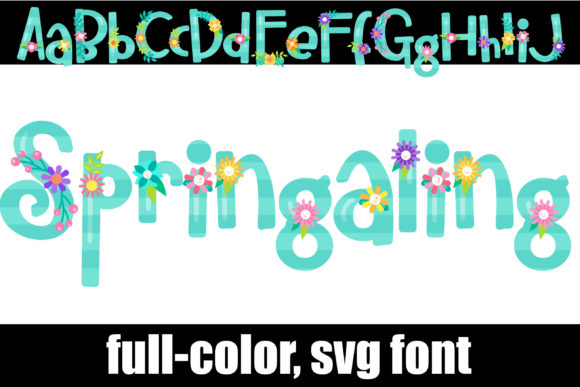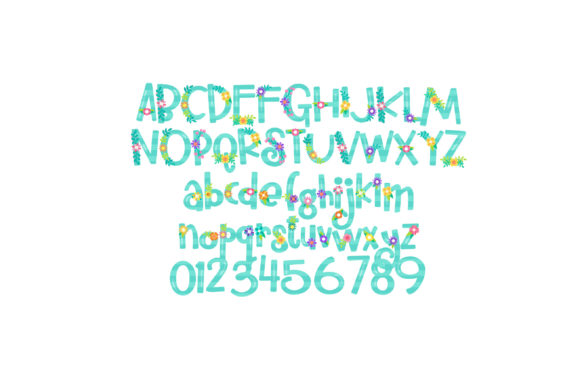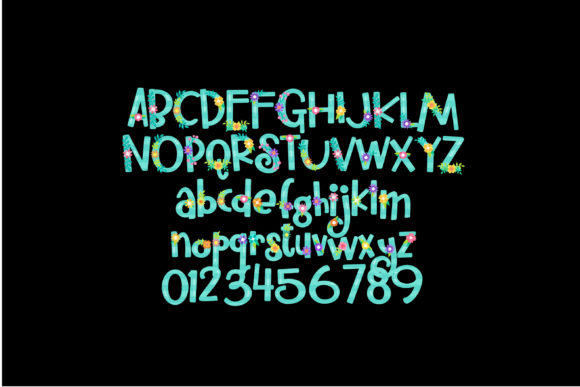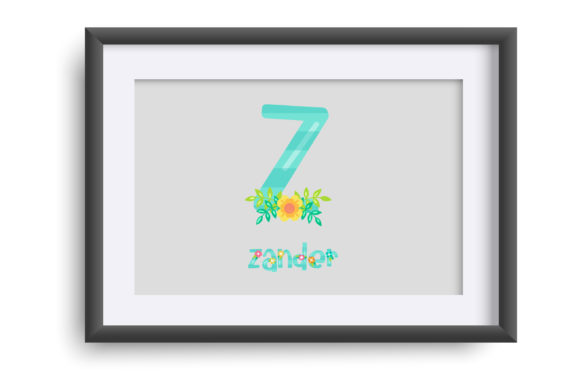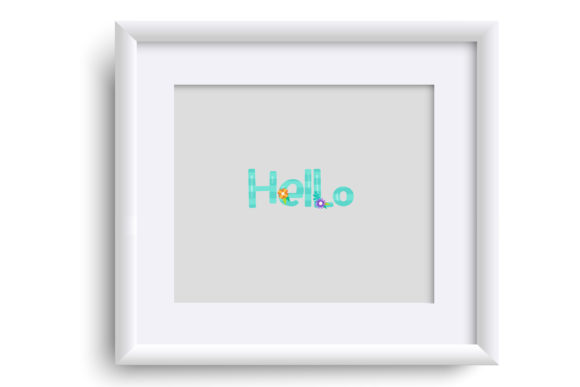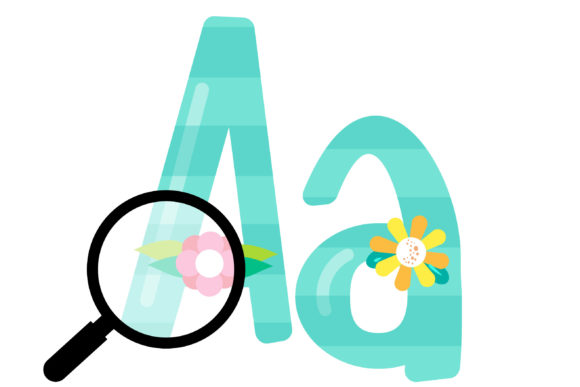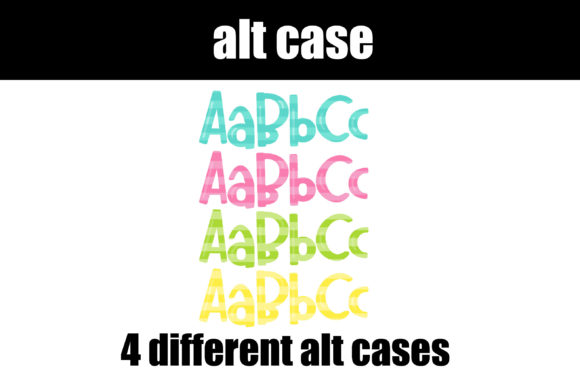
Springaling Font
About Springaling Font
Springaling is a captivating full-color font that brings a delightful touch to your designs. With its heavy sans serif lettering in soft pastel tones and charming flower accents, it adds a whimsical and playful element to any project. Whether you’re creating designs for spring-themed events, feminine branding, or simply want to infuse your creations with a touch of cheerfulness, Springaling is an excellent choice.
One of the remarkable features of Springaling is its PUA encoding. PUA stands for “Private Use Area,” which allows you to access all the amazing glyphs and ligatures effortlessly. This means you have a wide range of creative options at your disposal, enabling you to customize and enhance your designs with ease.
When you incorporate Springaling into your designs, you’ll notice how it breathes life into them. The combination of the chunky lettering, soft pastel colors, and whimsical flower details adds a sense of liveliness and enchantment. Your designs will exude a playful and captivating vibe that will surely catch the viewer’s attention.
Let Springaling be your go-to font for projects that require a touch of joy and creativity. Whether it’s for branding, invitations, social media graphics, or any other design endeavor, this full-color font will infuse your creations with a delightful charm. Embrace the PUA encoding and explore the wide range of glyphs and ligatures available to unlock the font’s full potential and create stunning designs that come alive with Springaling!